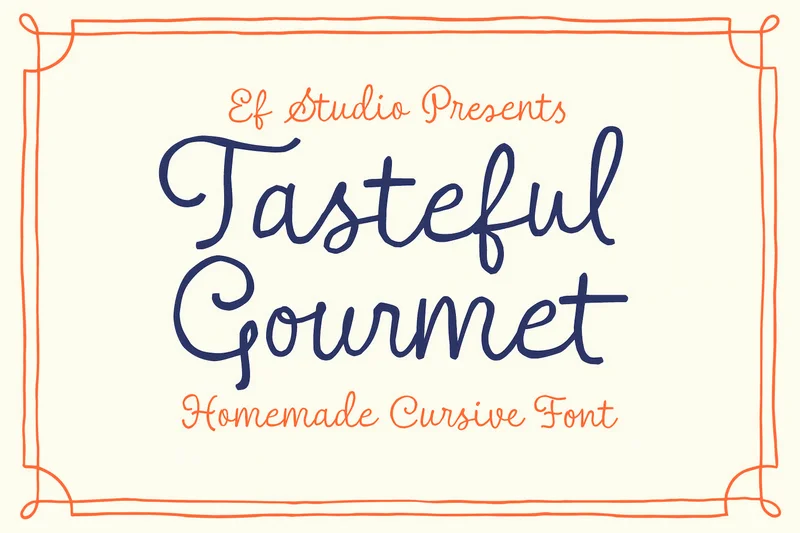
Tasteful Gourmet
Tasteful Gourmet is a casual cursive font inspired by homemade lettering and cozy handwritten menus. Its playful curves and natural rhythm bring a warm and inviting touch to packaging, cafe branding, recipe cards, greeting designs, and creative projects. Perfect for adding a personal homemade feel with a stylish cursive twist.